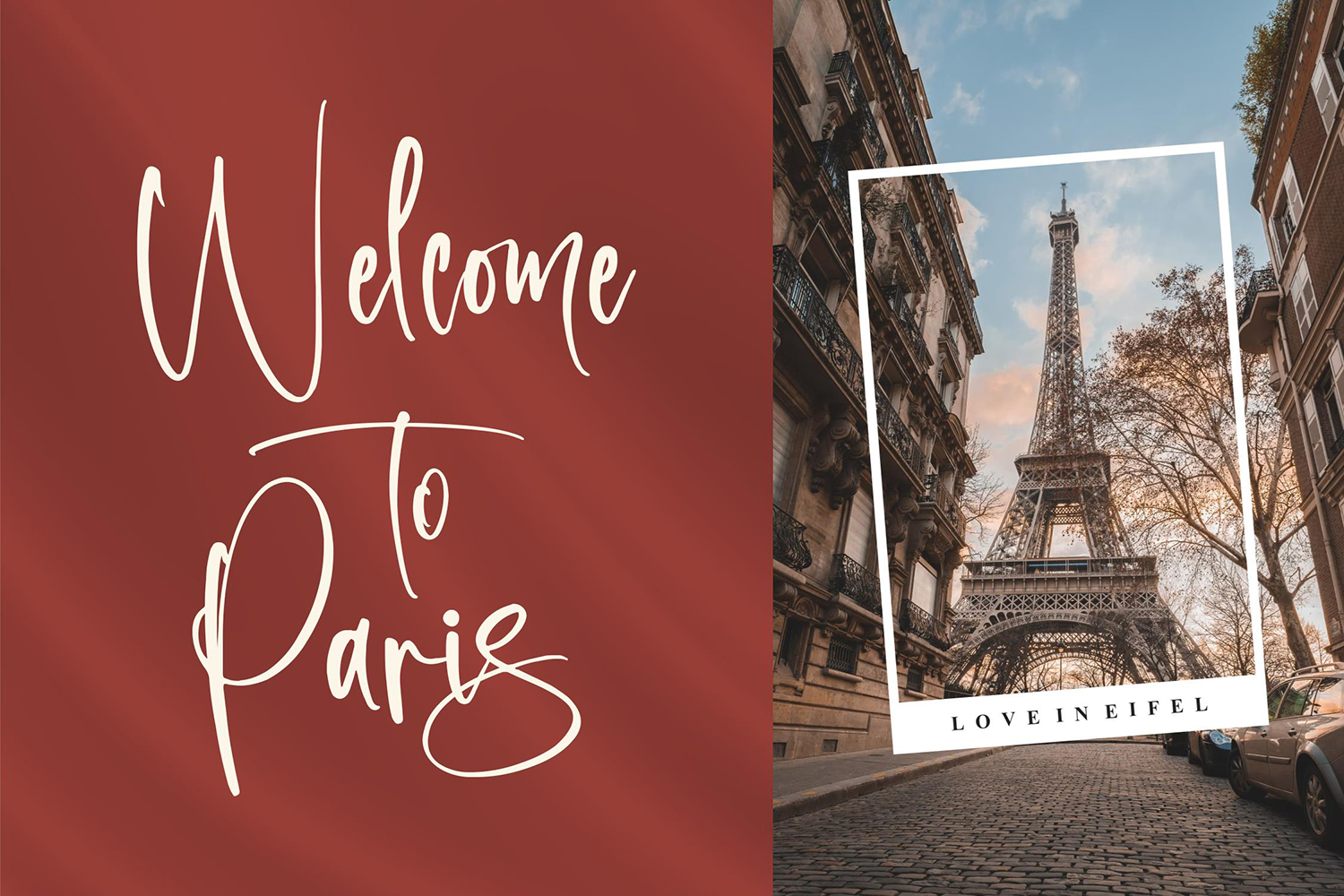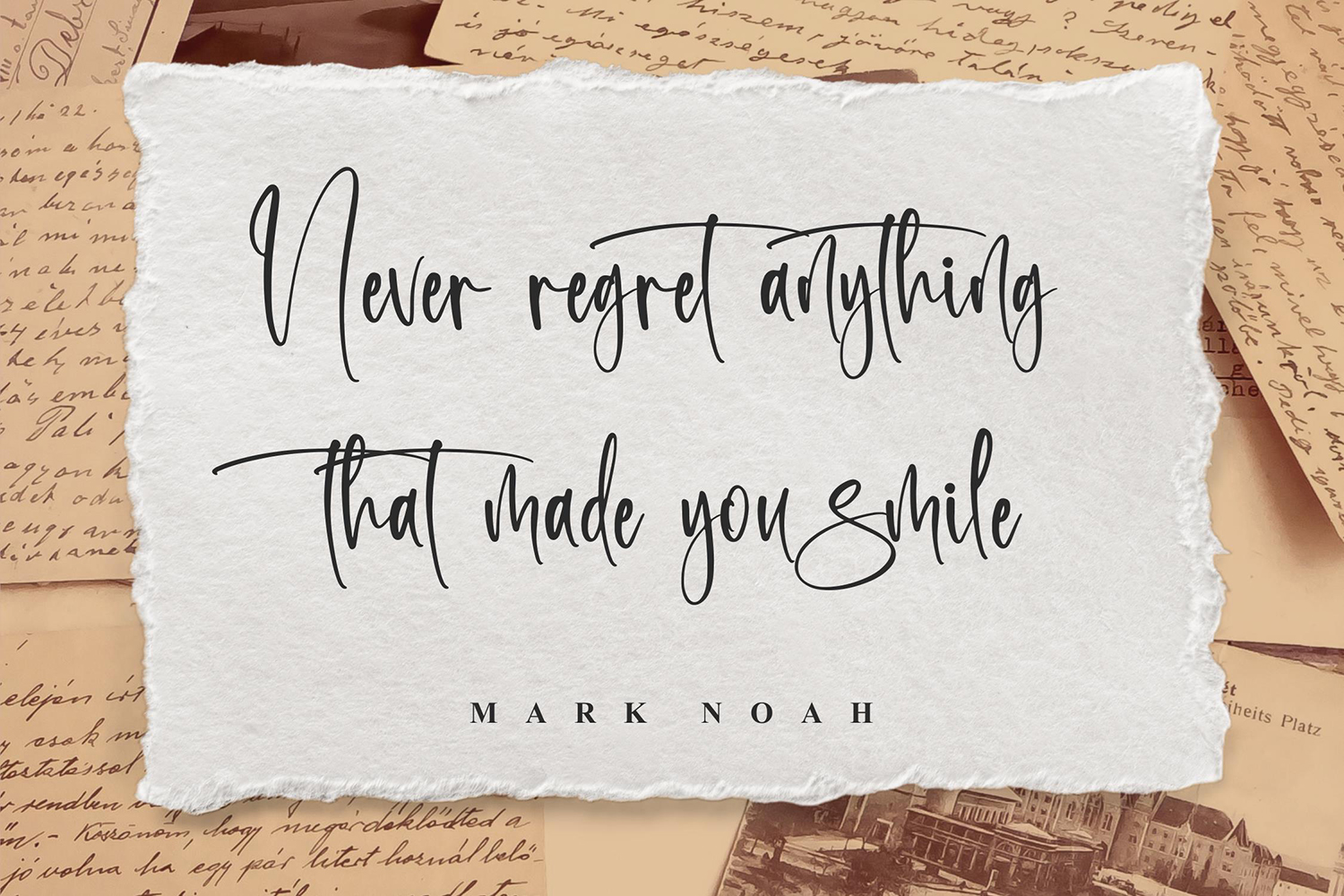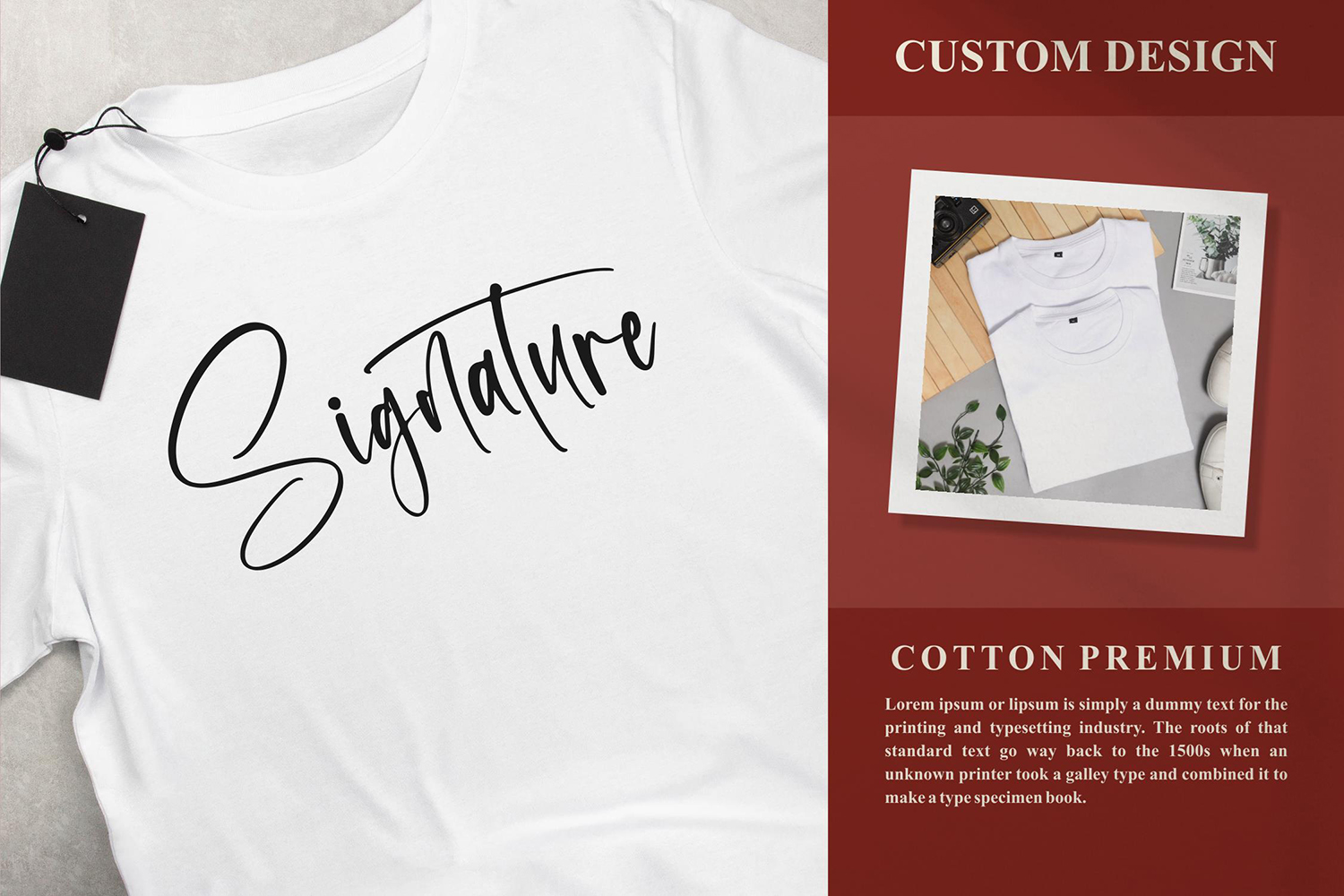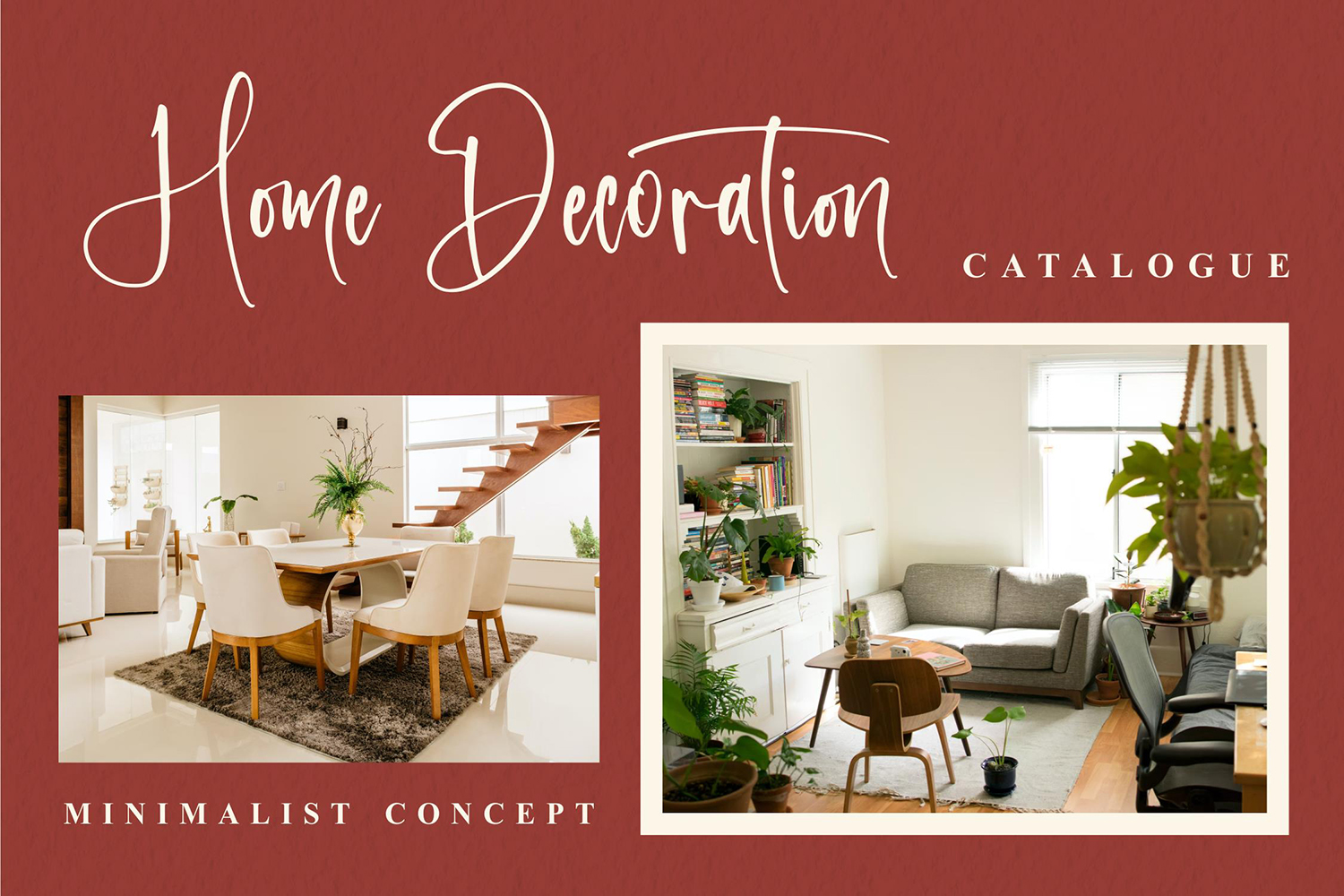
Semilya Fontera Free Font
Introducing Semilya Fontera Free Font – an enchanting script font adorned with charming and playful characters that gracefully dance along the baseline. Infuse this font into your most creative ideas, and experience how it effortlessly makes them stand out with its captivating allure. Let Semilya Fontera add a touch of magic to your designs and elevate them to new heights of visual appeal. This free typeface was designed by a talented Letternity Studio. If you like it don’t forget to check out the full version.